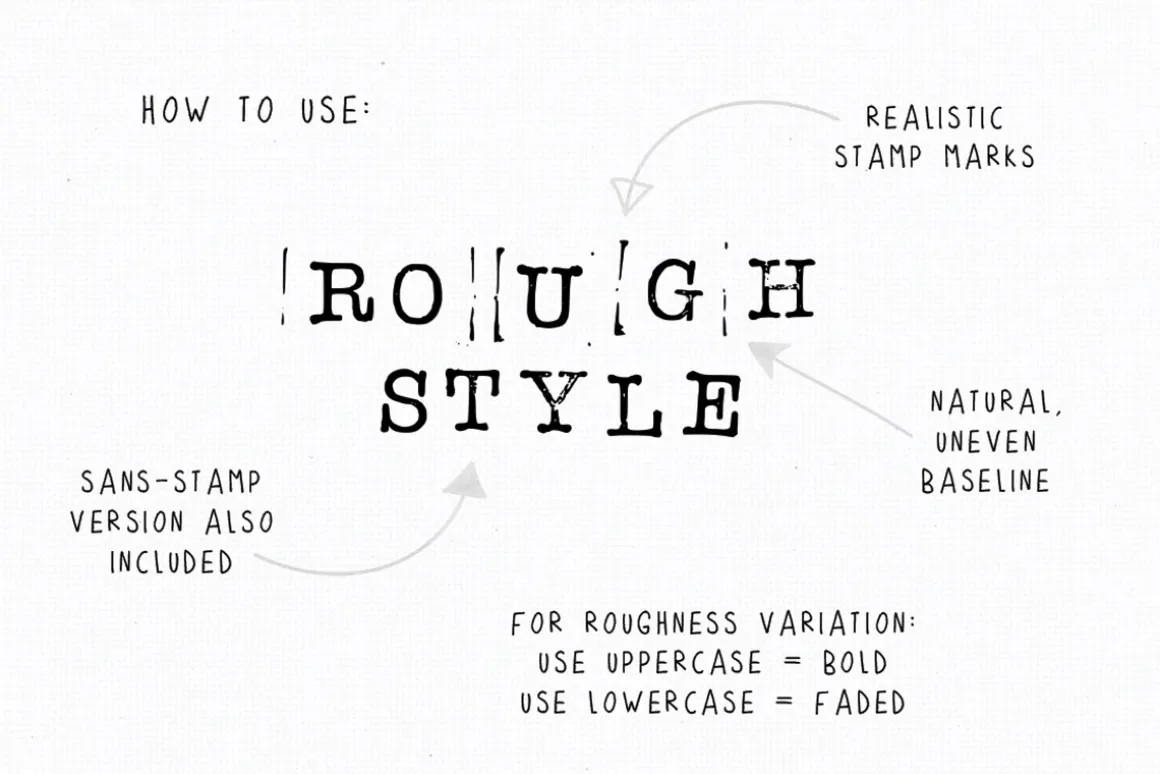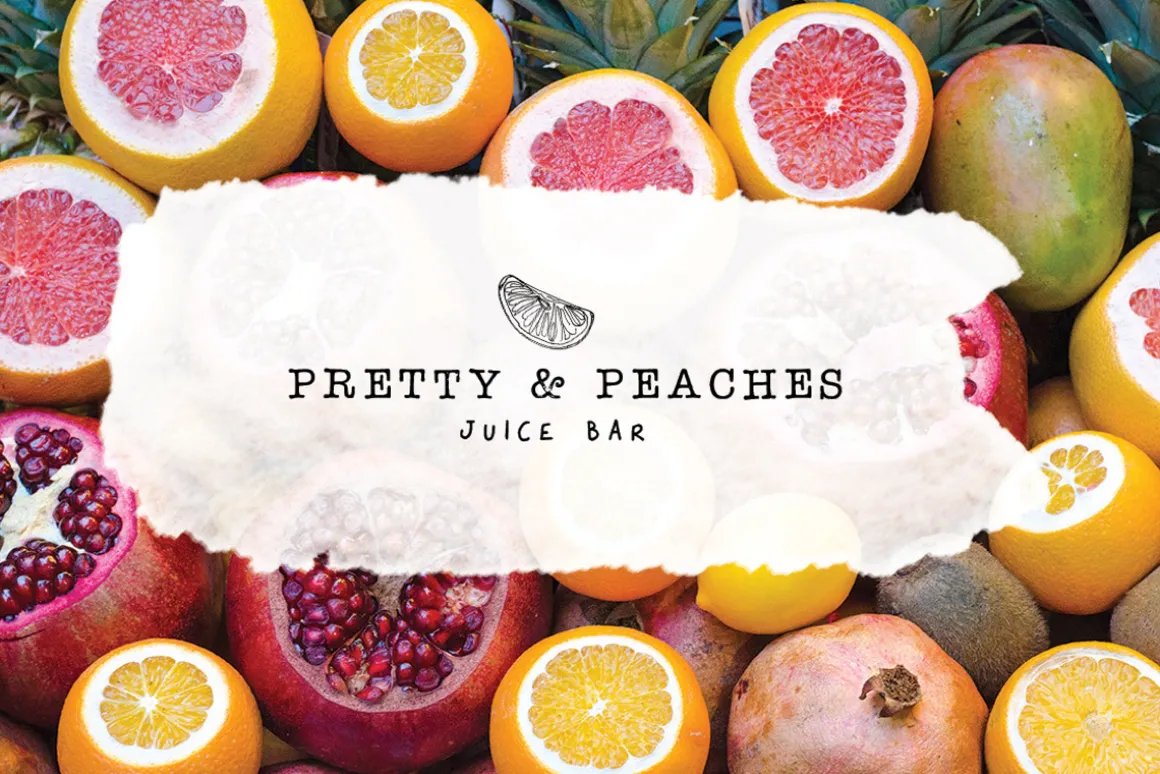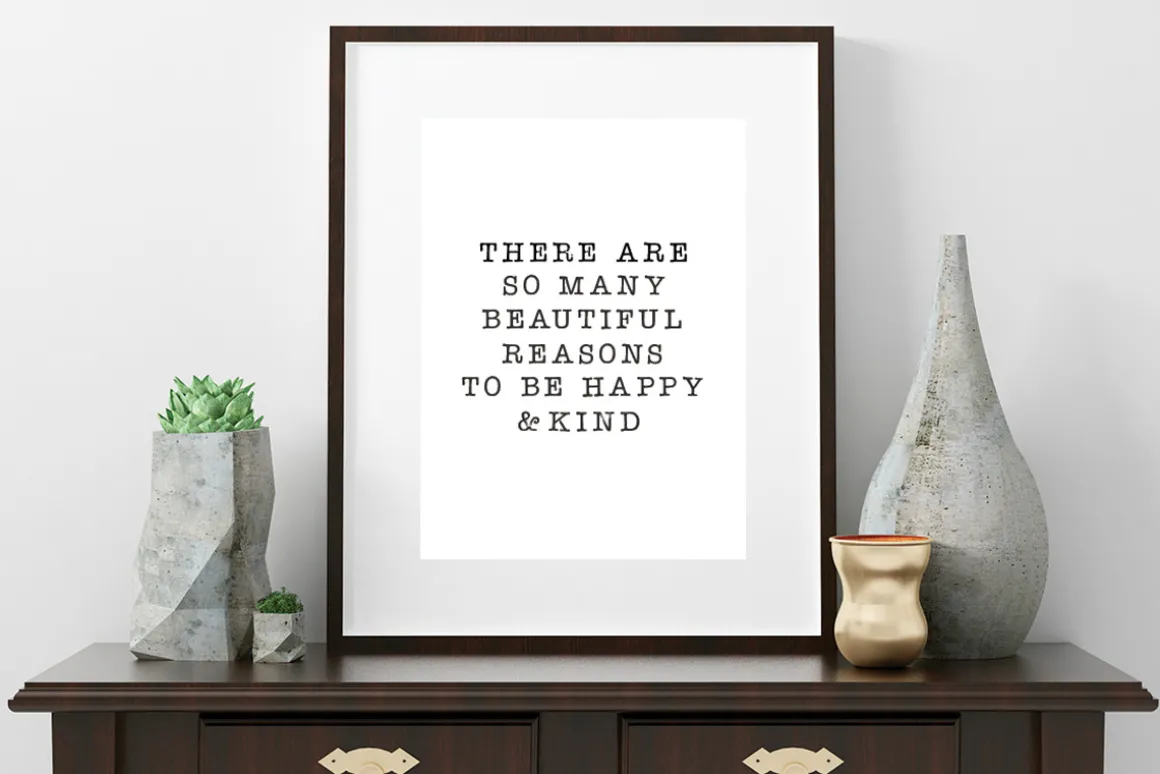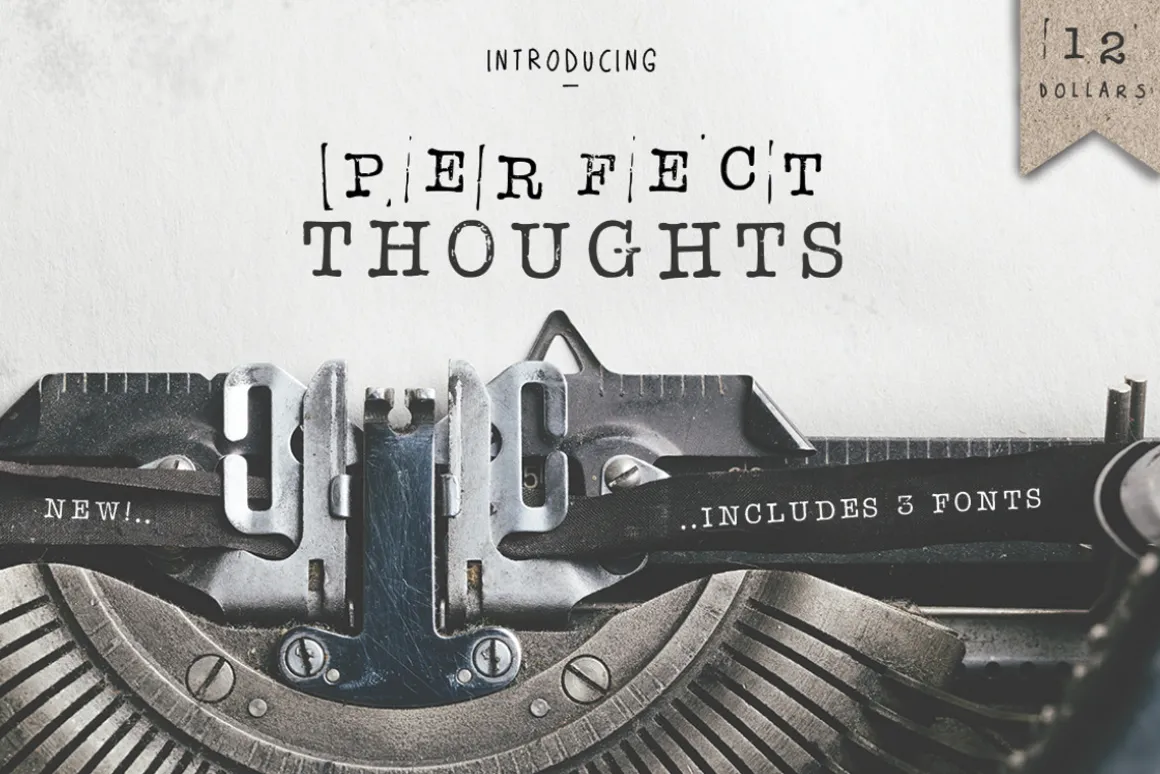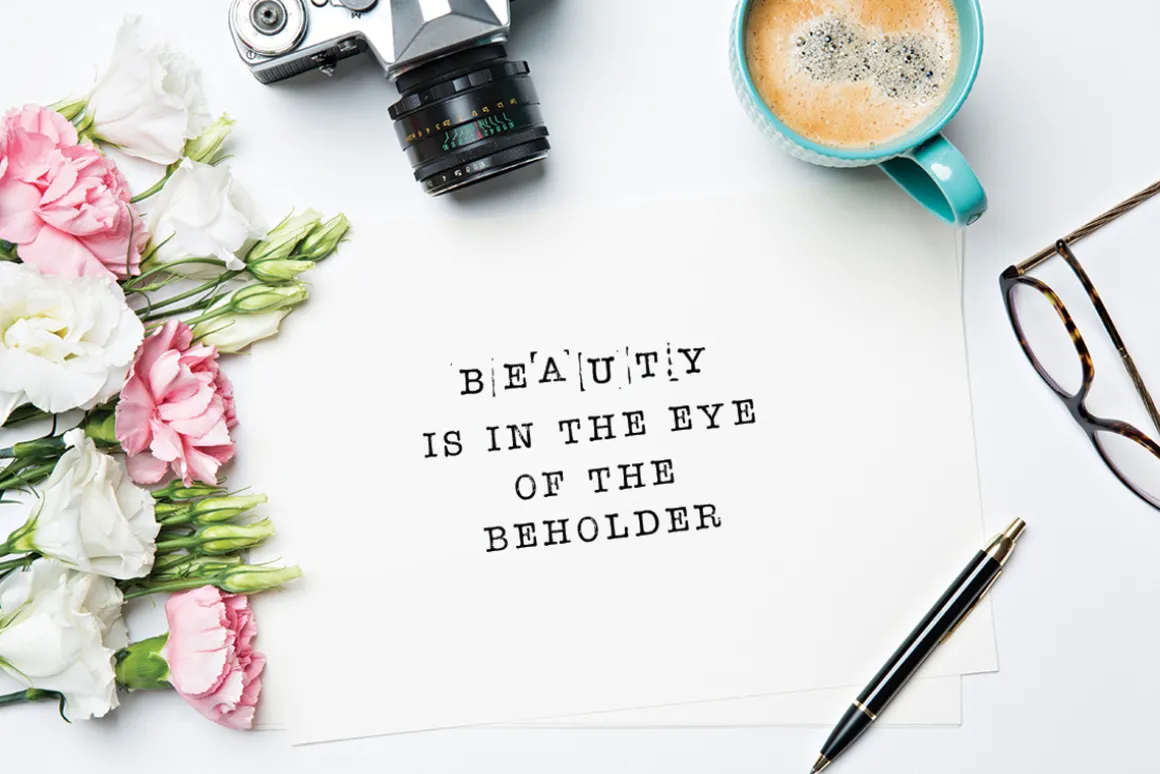
Introducing the ‘Perfect Thoughts’ Typewriter Font. Fun, classic and oh so cool!
This pack features three fonts; A version that includes real, ink-made stamp marks, a second that is a straighter and more serious font and finally a funky, irregular baseline font that will get your design jumpin’.
Perfect for adding that handmade touch to your work. Wedding invites, Gift tags and so much more will look incredible using ‘Perfect Thoughts’.